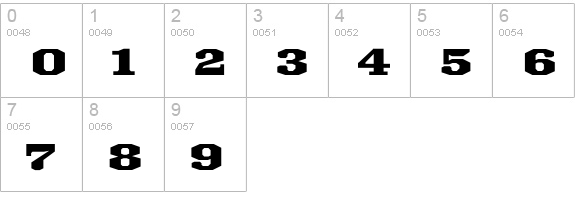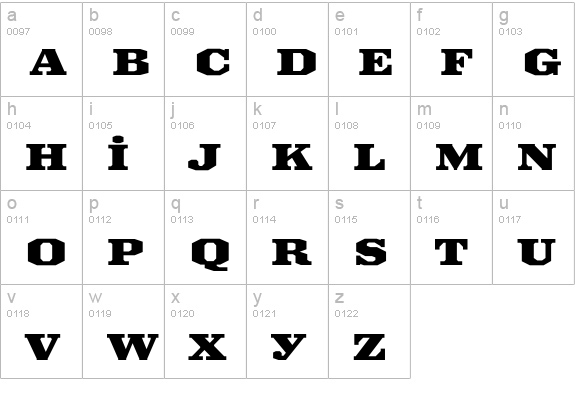
IronmongerExtnd Font Details
IronmongerExtnd is a versatile and striking font that exudes an air of strength and industrial sophistication. Its bold, angular letterforms are reminiscent of the sturdy ironwork found in traditional blacksmith shops, while its extended proportions add a modern twist. This font is perfect for capturing attention and making a bold statement in any design project. What sets IronmongerExtnd apart is not just its aesthetic appeal, but also its accessibility. It is freely available to download at FontsMarket.com, making it a valuable asset for designers and creatives on a budget. Whether you're working on a personal project or a professional assignment, IronmongerExtnd allows you to add a touch of rugged elegance to your designs without breaking the bank. With its wide range of characters and multilingual support, IronmongerExtnd offers endless creative possibilities. Use it to create impactful headlines, captivating logos, or eye-catching posters. Its distinctive style will ensure that your designs stand out from the crowd. IronmongerExtnd is a font that embodies the spirit of craftsmanship and innovation. Its bold, free-spirited nature will inspire you to push the boundaries of your design work and explore new creative horizons. Download it for free at FontsMarket.com and unleash your creativity today.